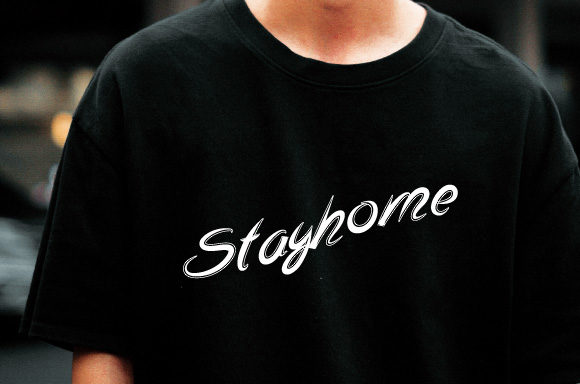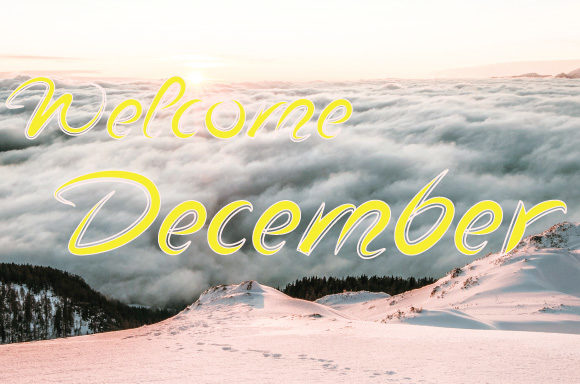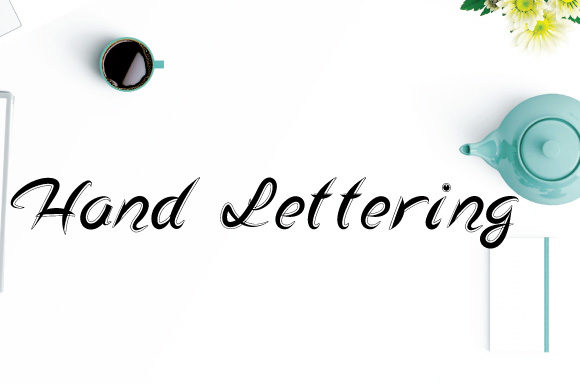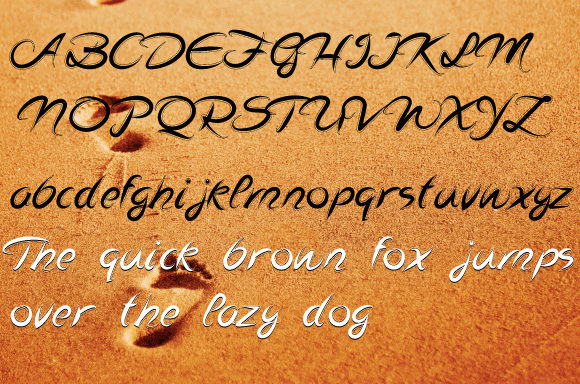
Introduction to Maxims Font
Maxims is a unique lettered handwritten font.
Key Features of Maxims Font
Why Choose Maxims Font?
Maxims Font offers exceptional quality and versatility, making it a valuable addition to your design toolkit. Whether you’re creating for personal projects or commercial use, Maxims Font delivers professional results.